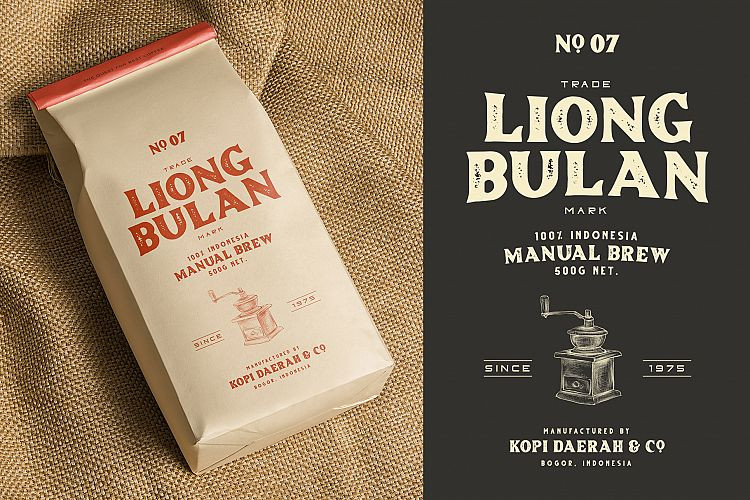
Brotherland American Vintage Font
This is a vintage label display typeface. A masculine vintage display font with a modern flair. This nostalgic font is super fun to work with and is perfect for logos and designers but really works well for all purposes. Introducing Brotherland Font. Brotherland is a Handdrawn serif typeface, they have rough and vintage character inspired from American Vintage typography. Brotherland comes with 4 style regular, italic, Aged, Aged italic. Perfect for logos, badges, typography and any vintage design needs.